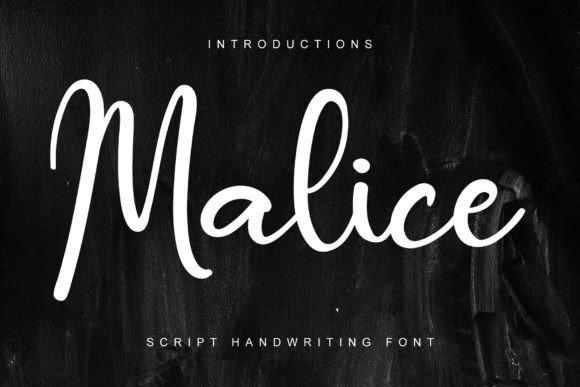
Unleash the enchantment of Christmas with Malice Font, a captivating script font designed to evoke the magic and warmth of the festive season. Its graceful curves and elegant strokes dance across your designs like snowflakes swirling in a winter wonderland, creating an atmosphere of timeless charm and sophistication.
Malice Font is the perfect choice for those seeking a font that embodies the essence of Christmas. Whether you're designing festive cards, creating personalized stockings, or crafting heartfelt gift tags, this font will add a touch of magic to your projects. Its versatility extends beyond Christmas, making it ideal for a wide range of creative endeavors, from logos and branding to labels and photography.
Immerse yourself in the beauty of Malice Font's carefully crafted characters, each one a testament to the artistry and attention to detail that went into its creation. The font's PUA encoding allows for effortless access to a treasure trove of glyphs and swashes, empowering you to add intricate embellishments and flourishes to your designs.
With Malice Font, your creative visions will come to life with an enchanting touch of elegance and charm. Whether you're a seasoned designer or just starting your creative journey, this font will elevate your projects to new heights of sophistication and originality.
Don't let this Christmas pass without experiencing the magic of Malice Font. Let its enchanting strokes weave their way into your designs, spreading joy and wonder wherever they go. Embrace the spirit of the season and create something truly extraordinary with Malice Font.